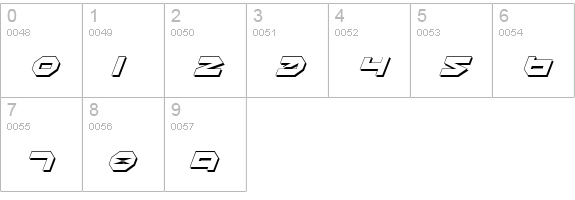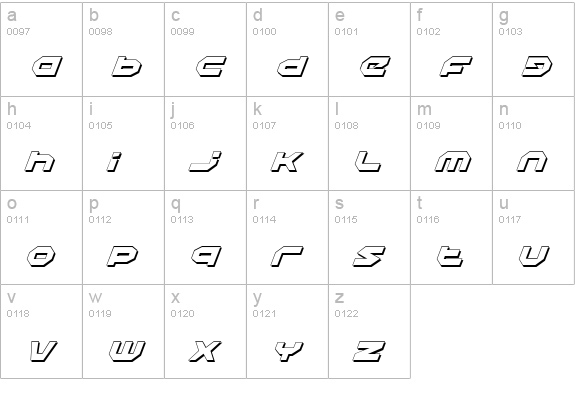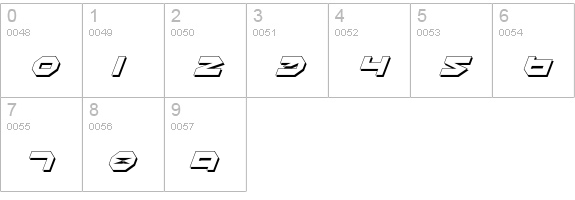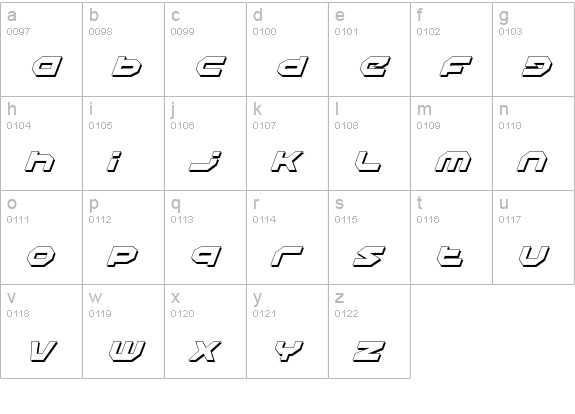
Halo Shadow Italic is a distinctive, italic variant in the Halo typeface family \xE2\x80\x94 well suited to design and typography projects.
Halo Shadow Italic is a stunning and versatile font that exudes an air of mystery and sophistication. Its sleek and elegant design makes it perfect for a wide range of creative projects, including logos, branding, packaging, and more. With its unique italicized style and captivating shadow effect, Halo Shadow Italic adds a touch of drama and intrigue to any text. The carefully crafted curves and intricate detailing of this font make it a truly eye-catching choice that will leave a lasting impression. What sets Halo Shadow Italic apart is not just its remarkable aesthetics, but also its accessibility. This font is available for free, allowing you to add a touch of elegance to your designs without breaking the bank. To access this exceptional font, simply head over to FontsMarket.com, where you can freely download Halo Shadow Italic and unlock its full potential. Whether you're a professional designer or a casual enthusiast, this font is a valuable addition to your creative toolkit. Get ready to elevate your designs with the allure and charm of Halo Shadow Italic. Download it today and let your creativity shine.